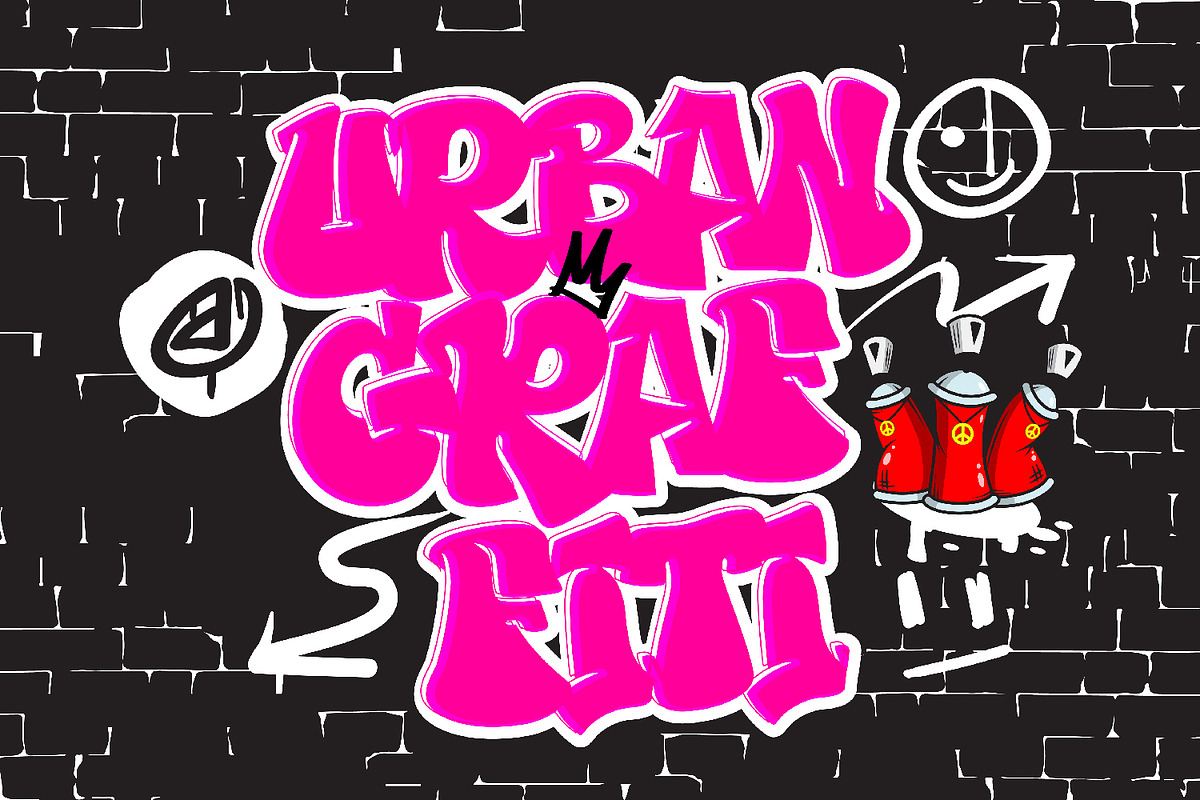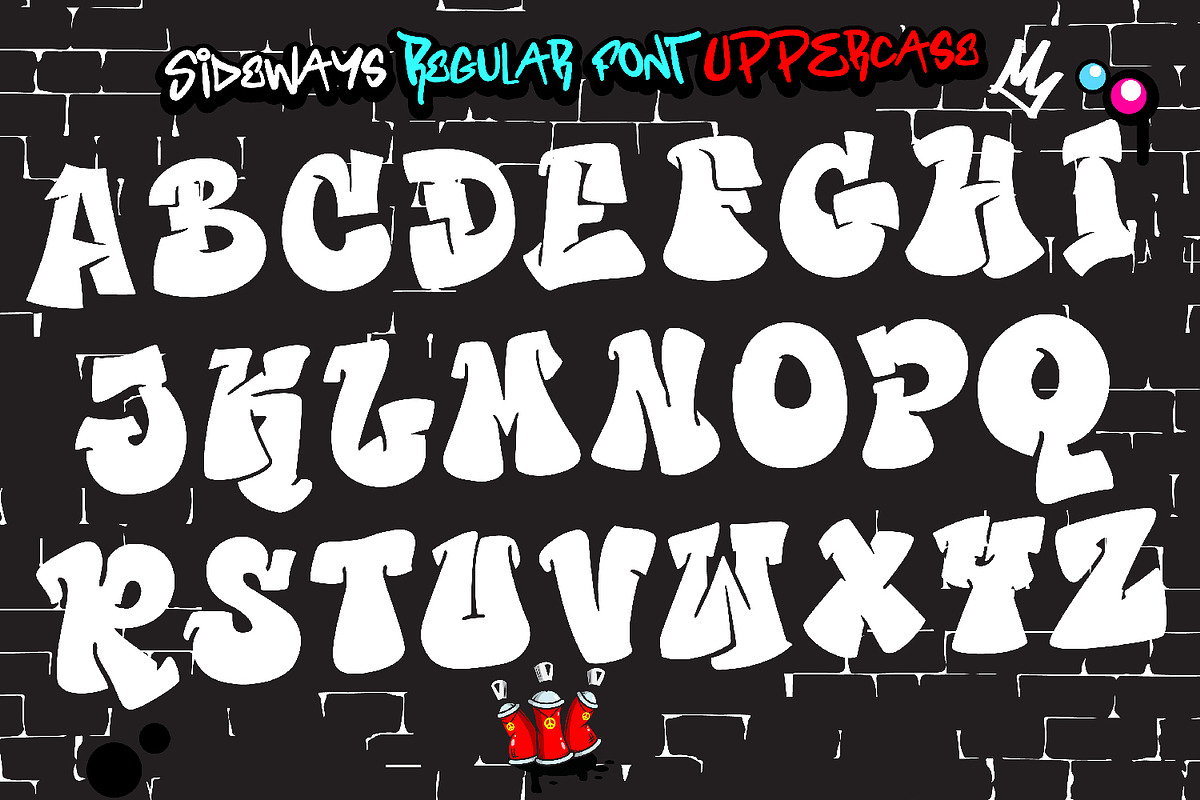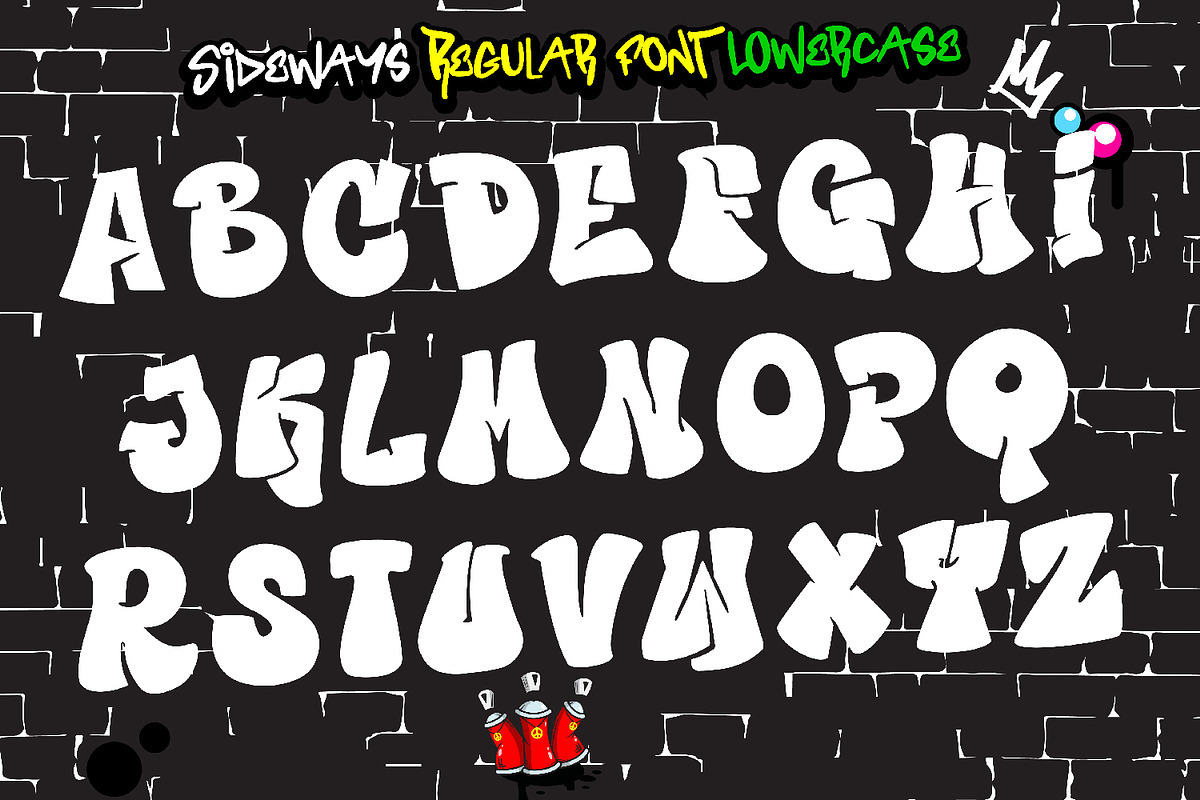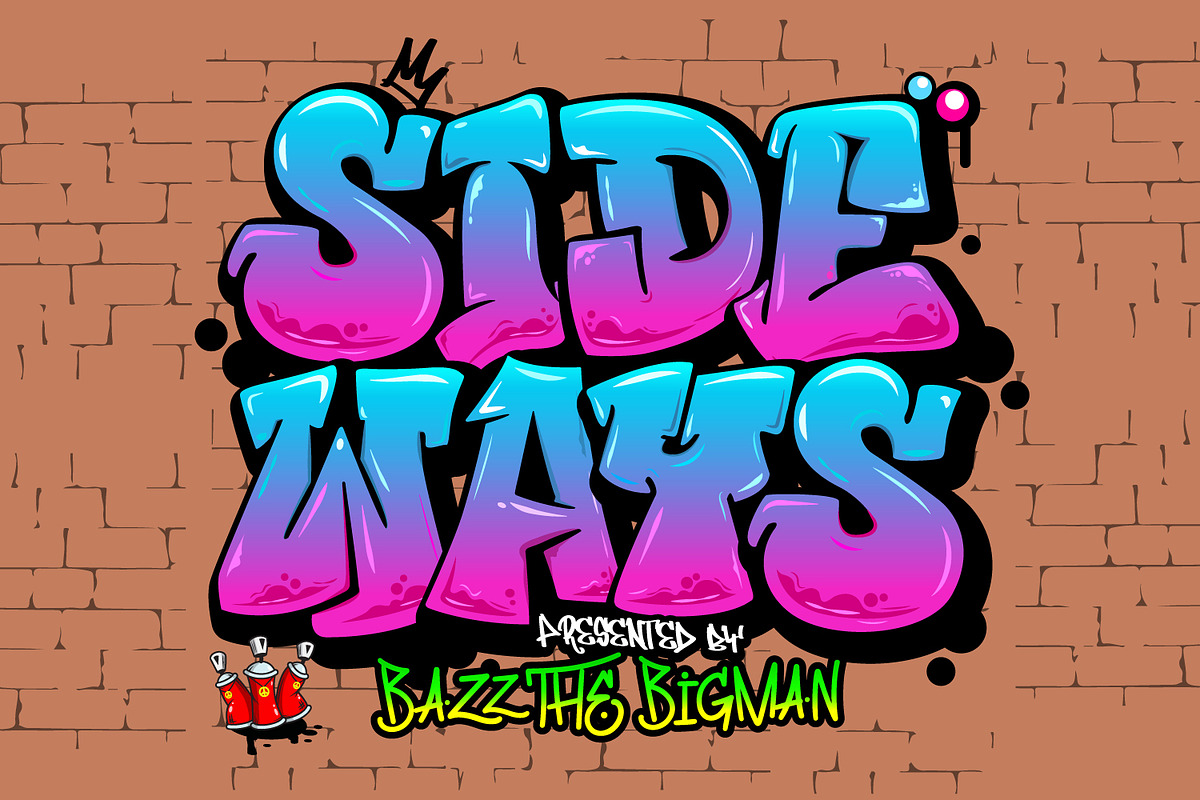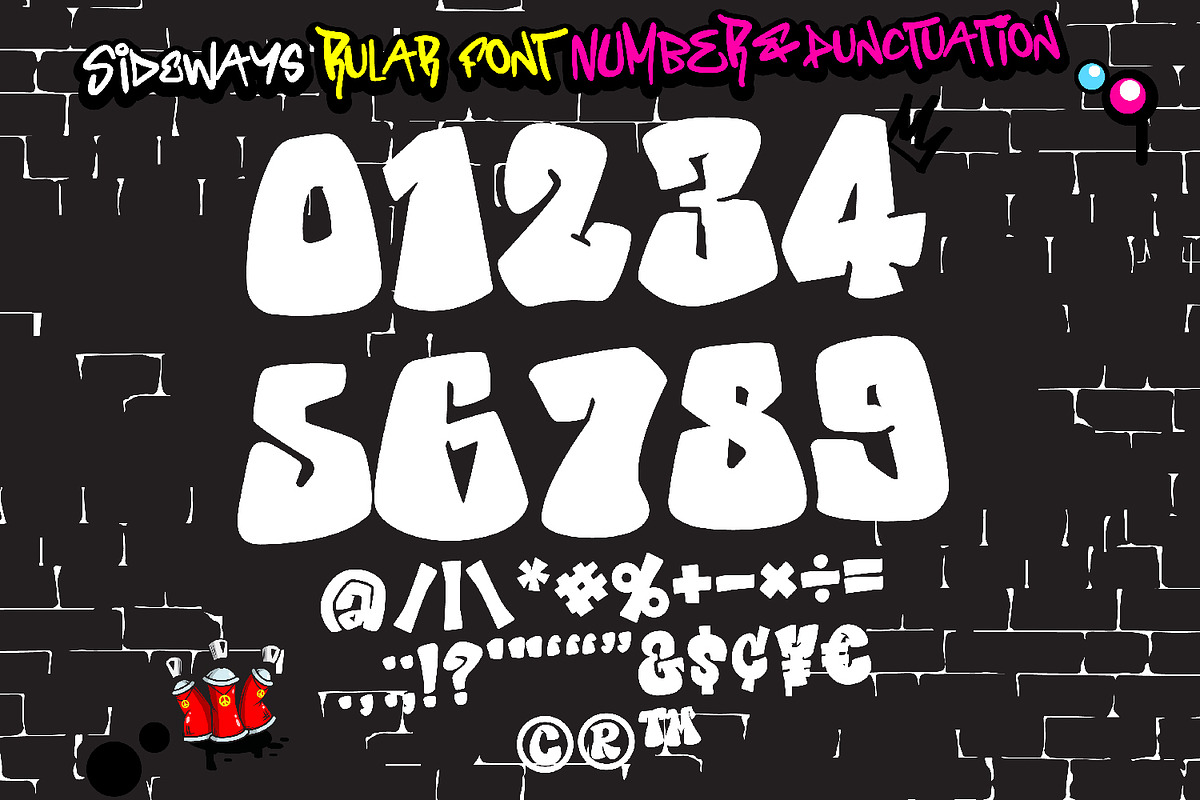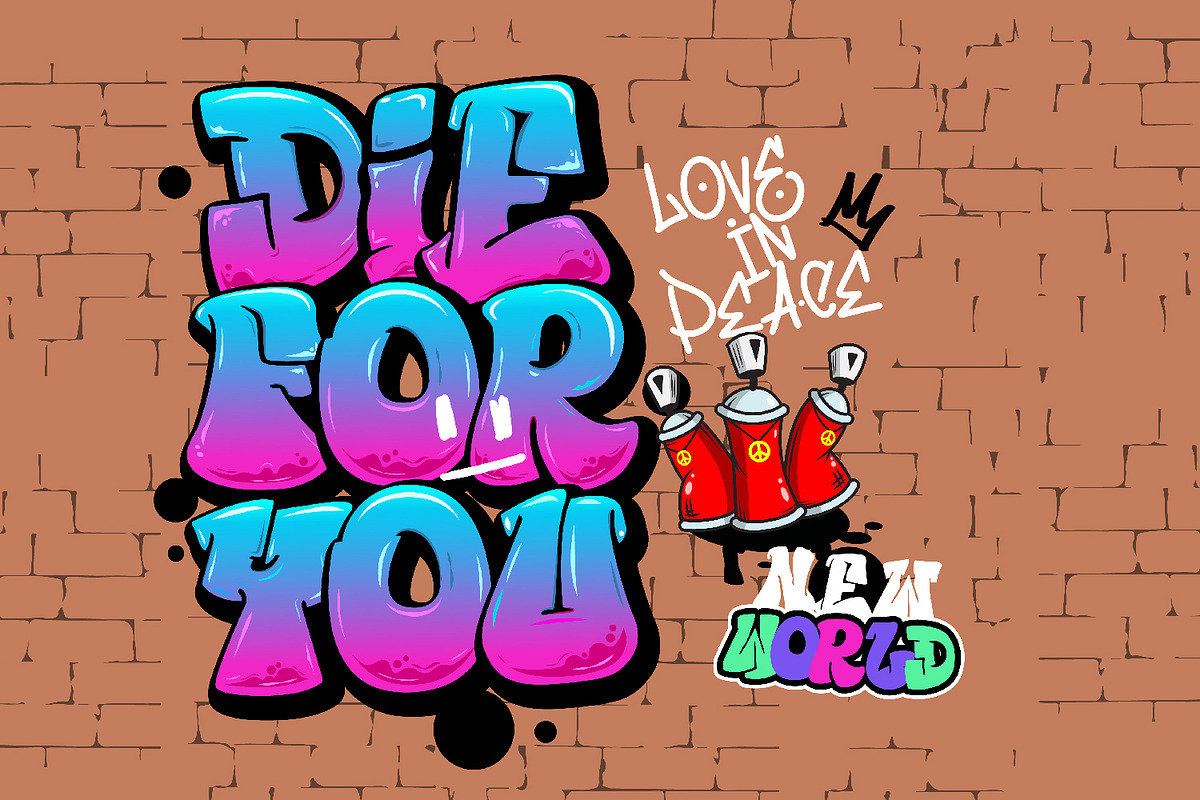
Sideways
Sideways is an awesome graffiti-styled display font that has an urban, street art vibe. This font is suitable for designs such as t-shirts, sportswear, logos, advertisements, clothing, and more.